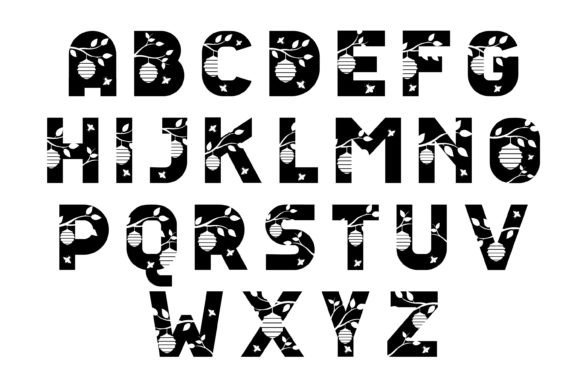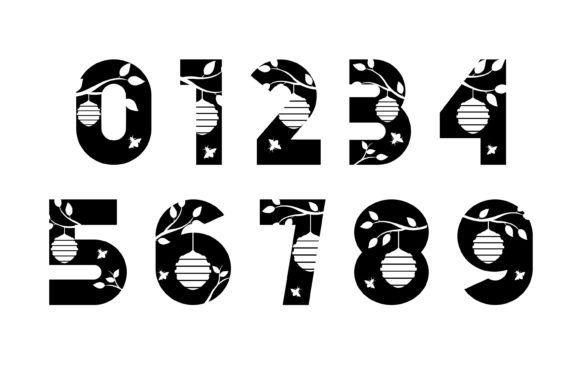
Introduction to Honey Bees Font Font
Fonts play a crucial role in design, and the Honey Bees Font font is a typeface that brings both character and versatility to any project. Whether you’re working on a branding project, a website, or a print design, the Honey Bees Font font offers a unique style that can elevate your work.
Honey Bees is a bee-decorated typeface.
This font is perfect for nature-themed designs and for childrenβs projects No matter the topic, this font will be an incredible asset to your fontsβ library, as it has the potential to elevate any creation.
Key Features of Honey Bees Font Font
Why Choose Honey Bees Font Font?
The Honey Bees Font font is more than just a typeface β it’s a design tool that helps you communicate your message with style and clarity. Its unique character set and versatile design make it suitable for a wide range of applications, from elegant invitations to bold headlines.
With its carefully crafted letterforms and balanced proportions, the Honey Bees Font font ensures readability and visual appeal across all mediums.
What makes Honey Bees Font font special?
The Honey Bees Font font stands out with its unique design, exceptional readability, and versatility across various design applications.